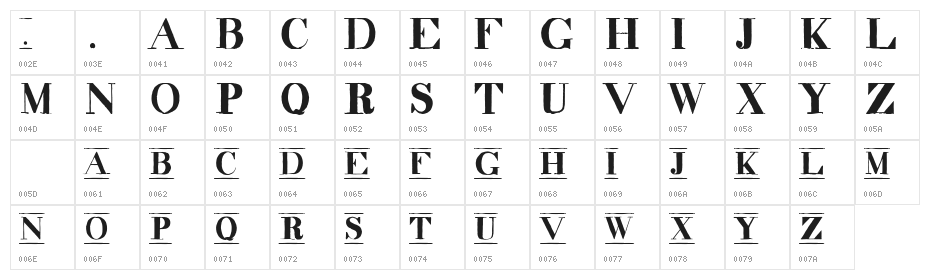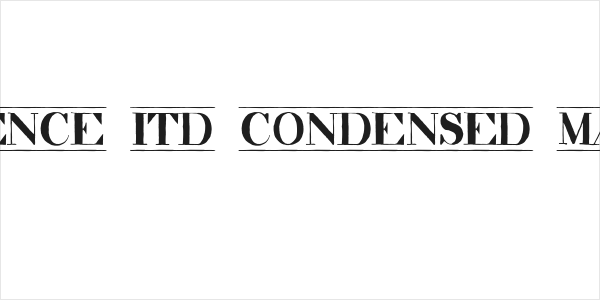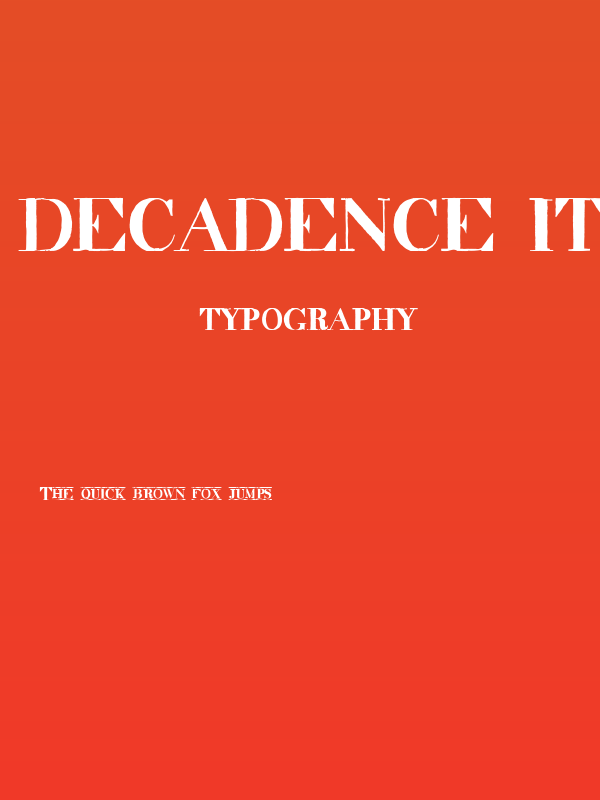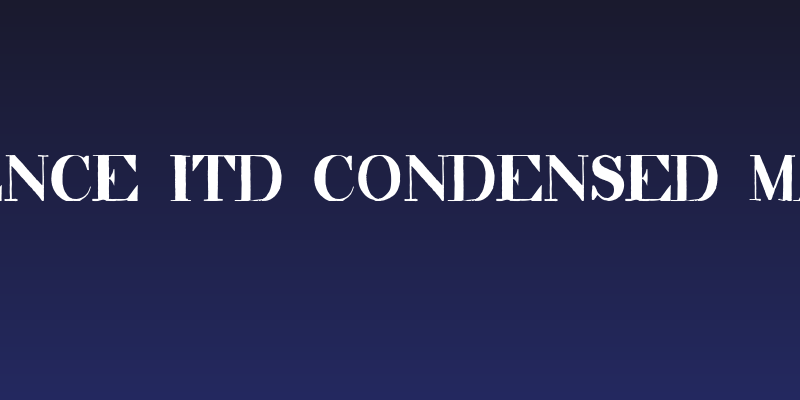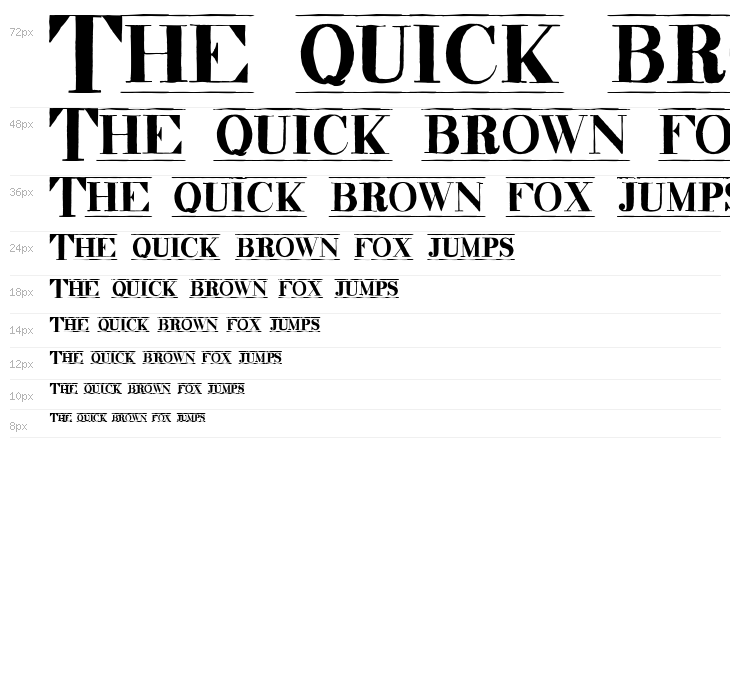
decadence itd condensed marquee Font
decadence itd condensed marquee Description
This font features a bold and dramatic style with high contrast between thick and thin strokes, giving it a striking and elegant appearance. The characters are condensed, which adds to the intensity and impact of the text. The serifs are sharp and pronounced, contributing to a classic yet modern aesthetic. The uppercase letters are particularly dominant, making them ideal for headlines or titles. The overall design is reminiscent of vintage typography, yet it maintains a contemporary edge that makes it versatile for various design projects.
| Proposed Projects | Ideal for use in headlines, posters, branding, and editorial design where a strong visual impact is desired. |